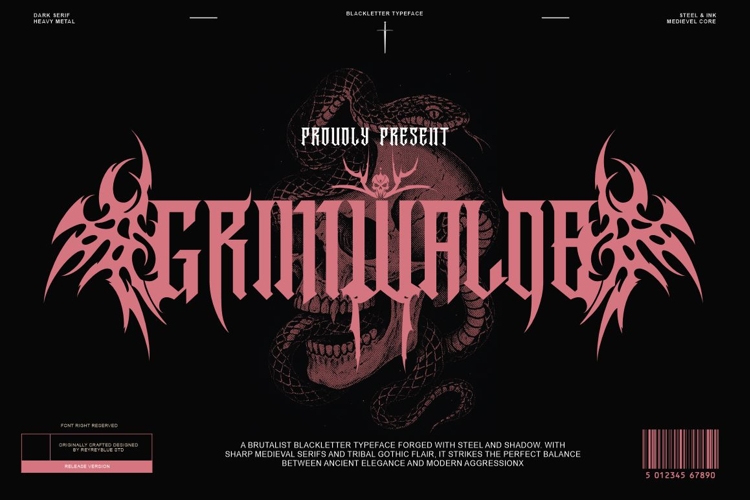
Grimvalde - Blackletter Typeface
Grimvalde is a dark serif blackletter typeface designed with 364 glyphs and a wide range of alternate characters, offering maximum versatility for bold and gothic-inspired designs. Crafted for designers who dare to go dark, Grimvalde blends ancient medieval elegance with modern brutalist edge—perfect for metal band logos, horror titles, gothic fashion, tattoo art, and occult branding.
With sharp serifs, tribal flourishes, and stylized alternates, Grimvalde lets you create custom typographic compositions with personality and depth. Every letterform has been carefully drawn to retain clarity, impact, and dramatic flair—whether on screen or in print.
- 364 glyphs including alternates, punctuation & multilingual support
- Uppercase-focused design with stylistic alternates
- Ideal for metal album covers, horror posters, branding, and apparel